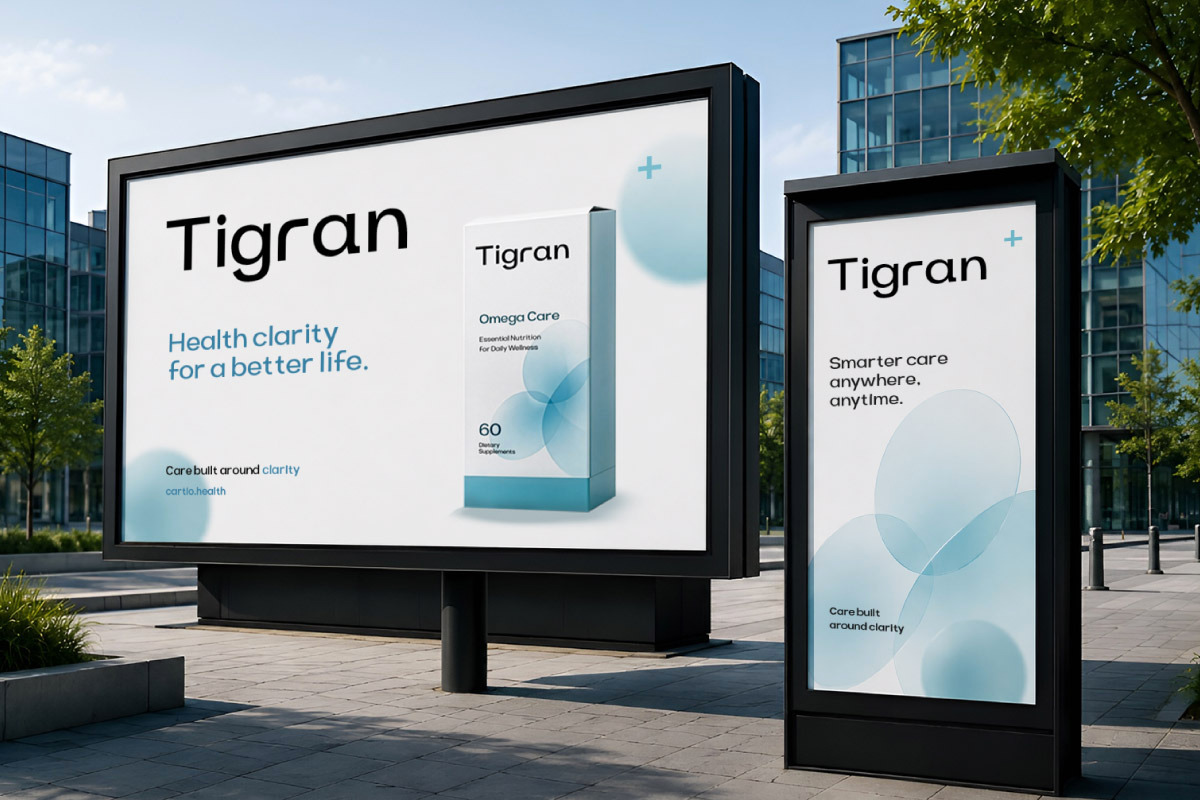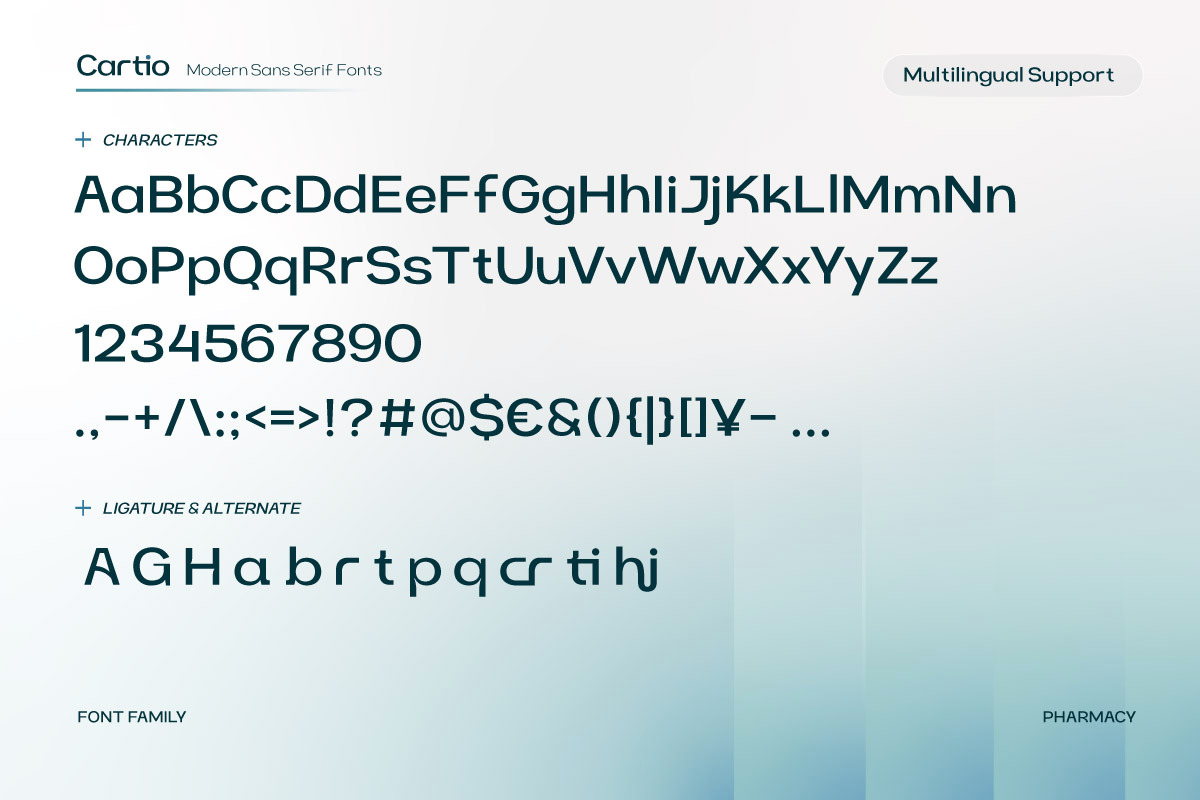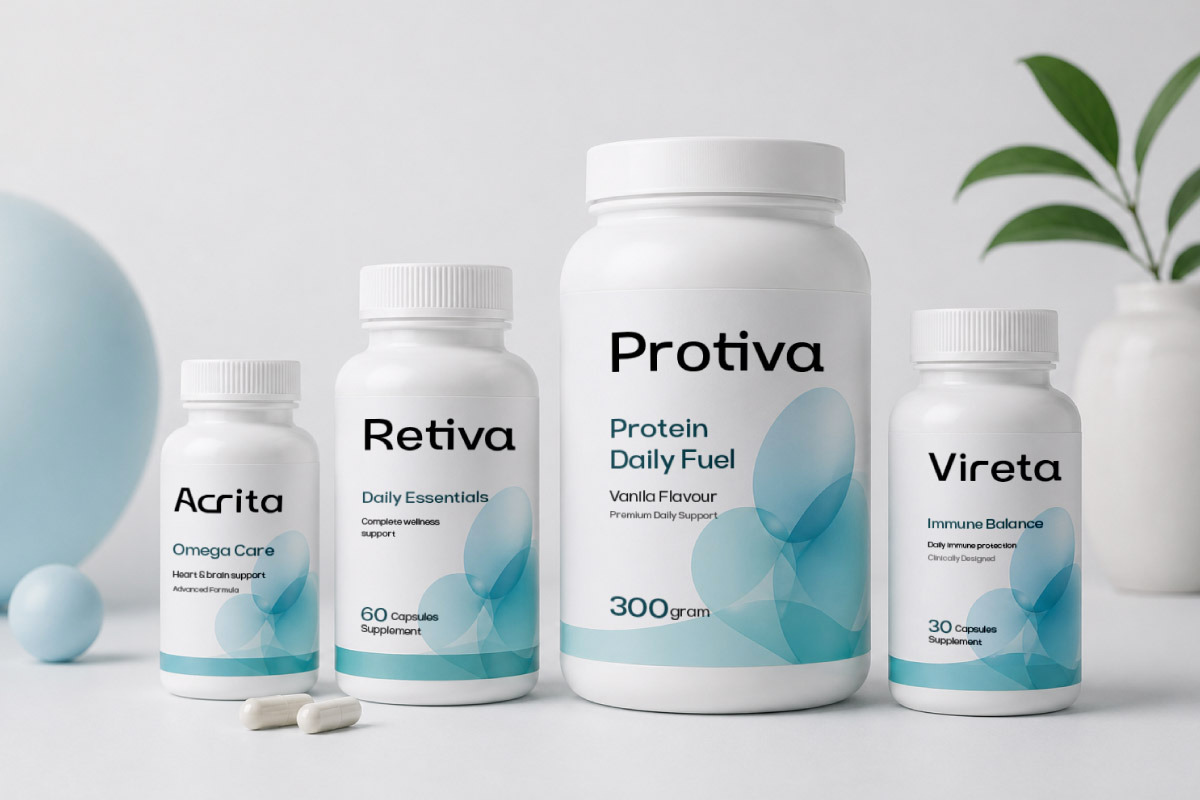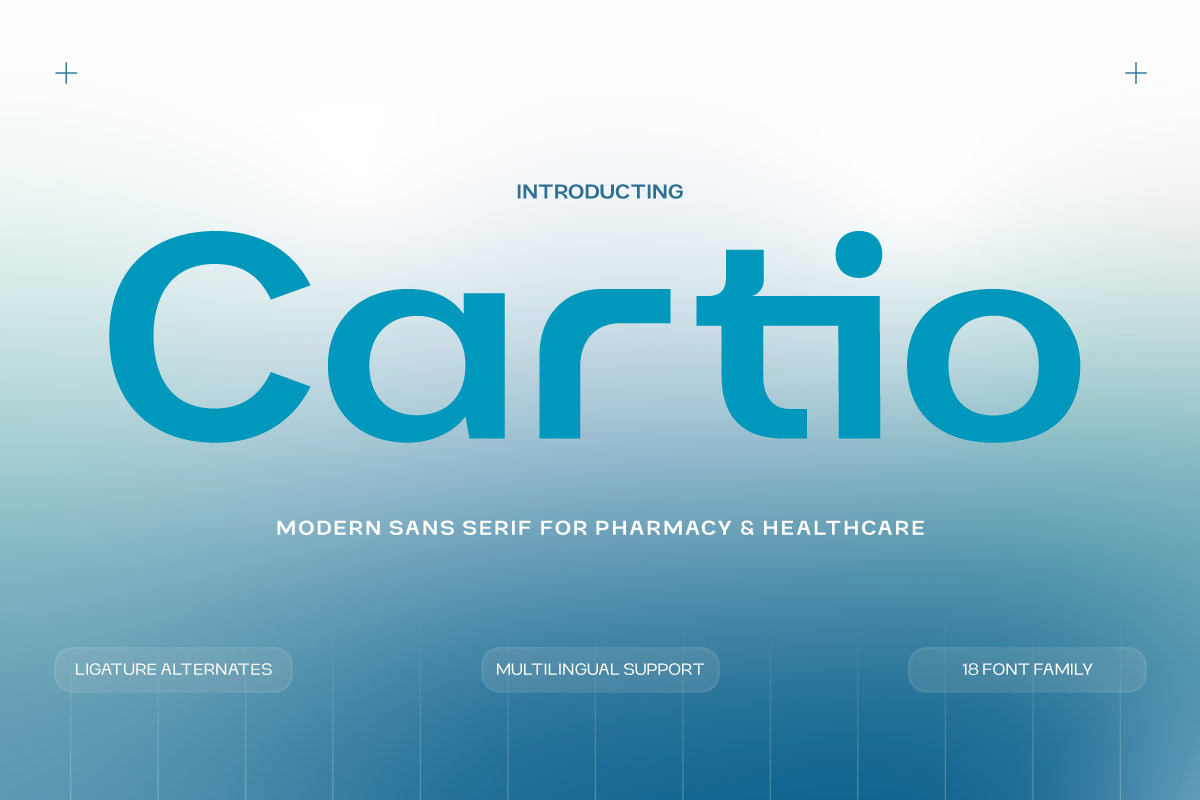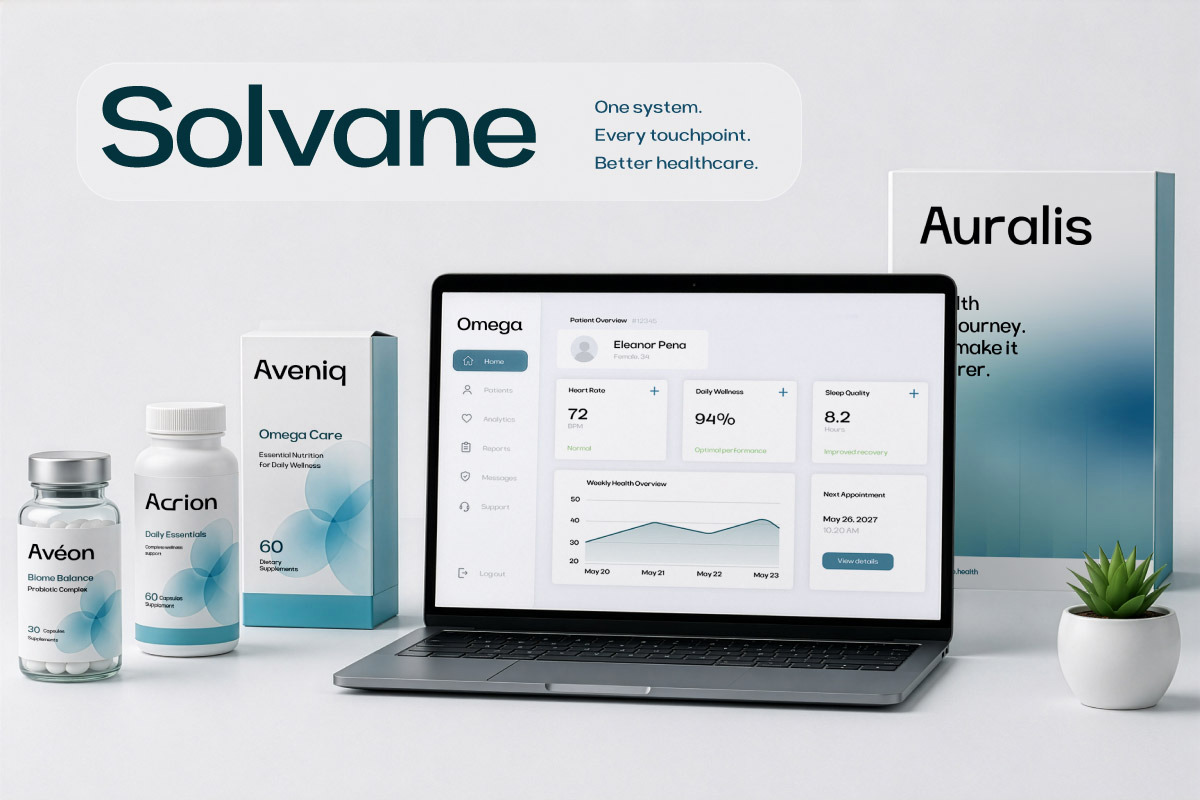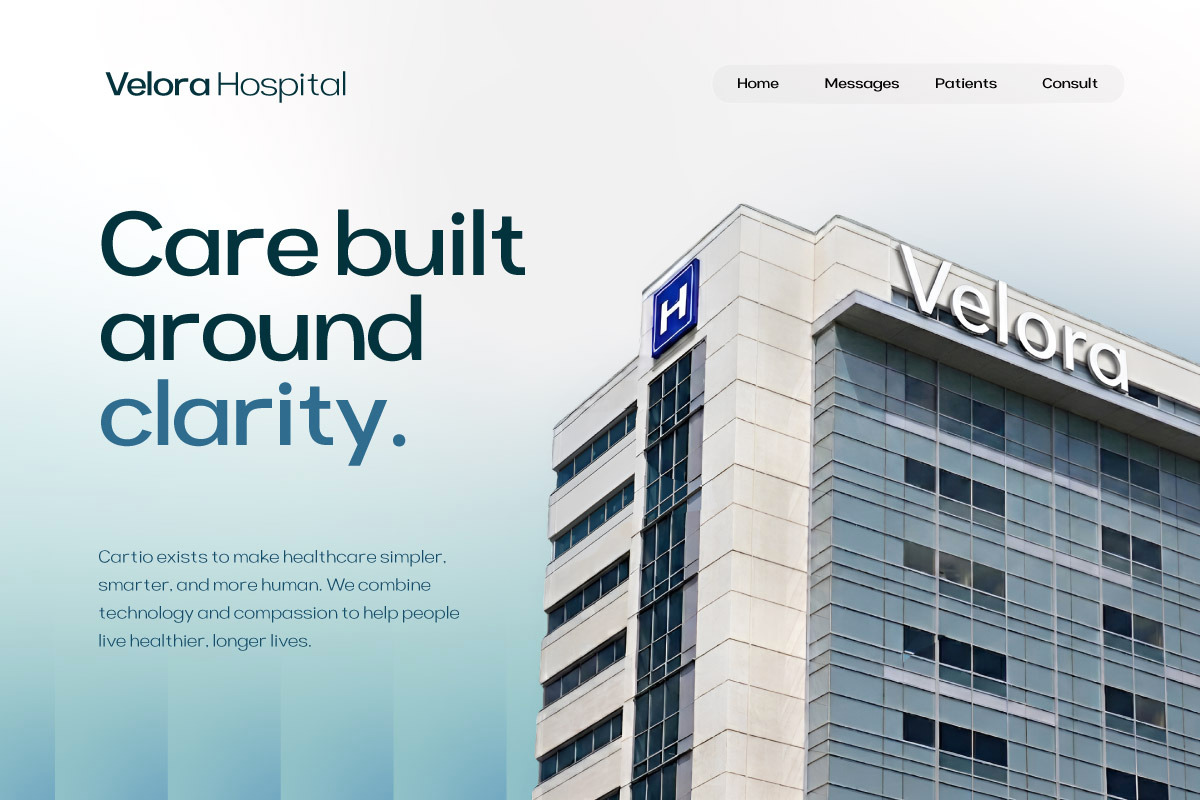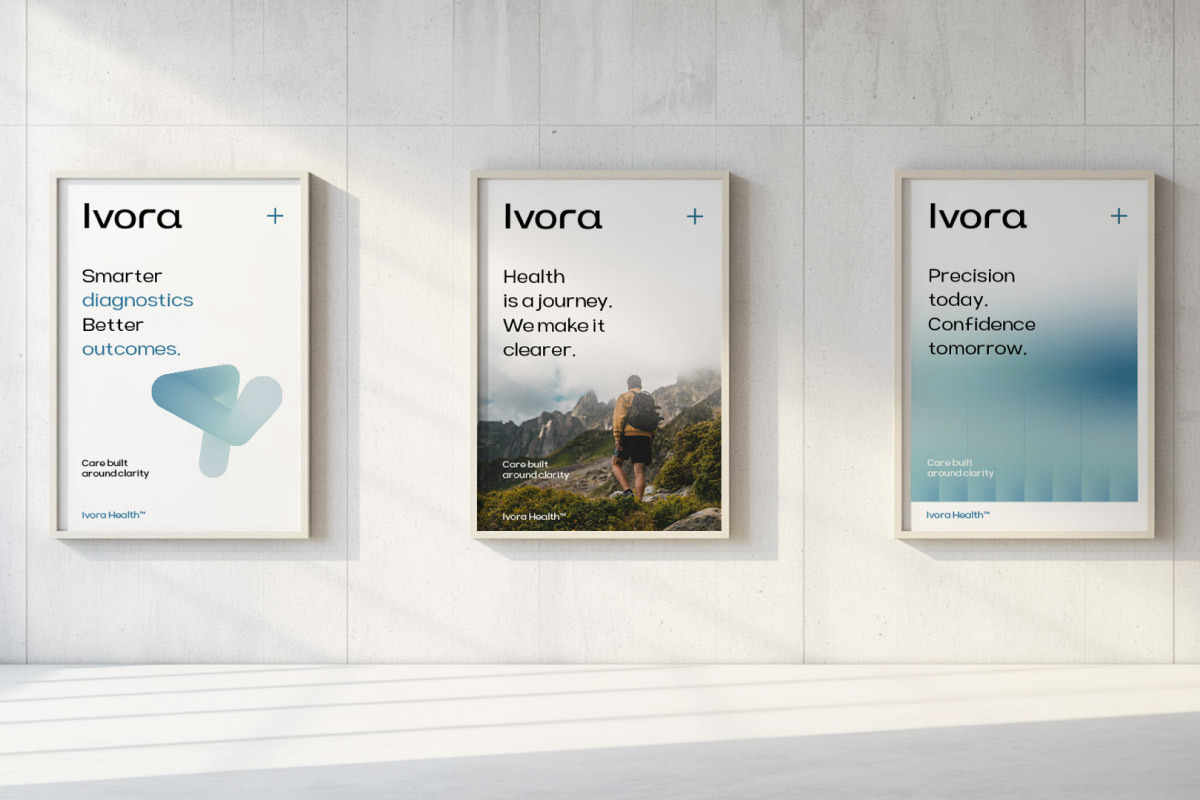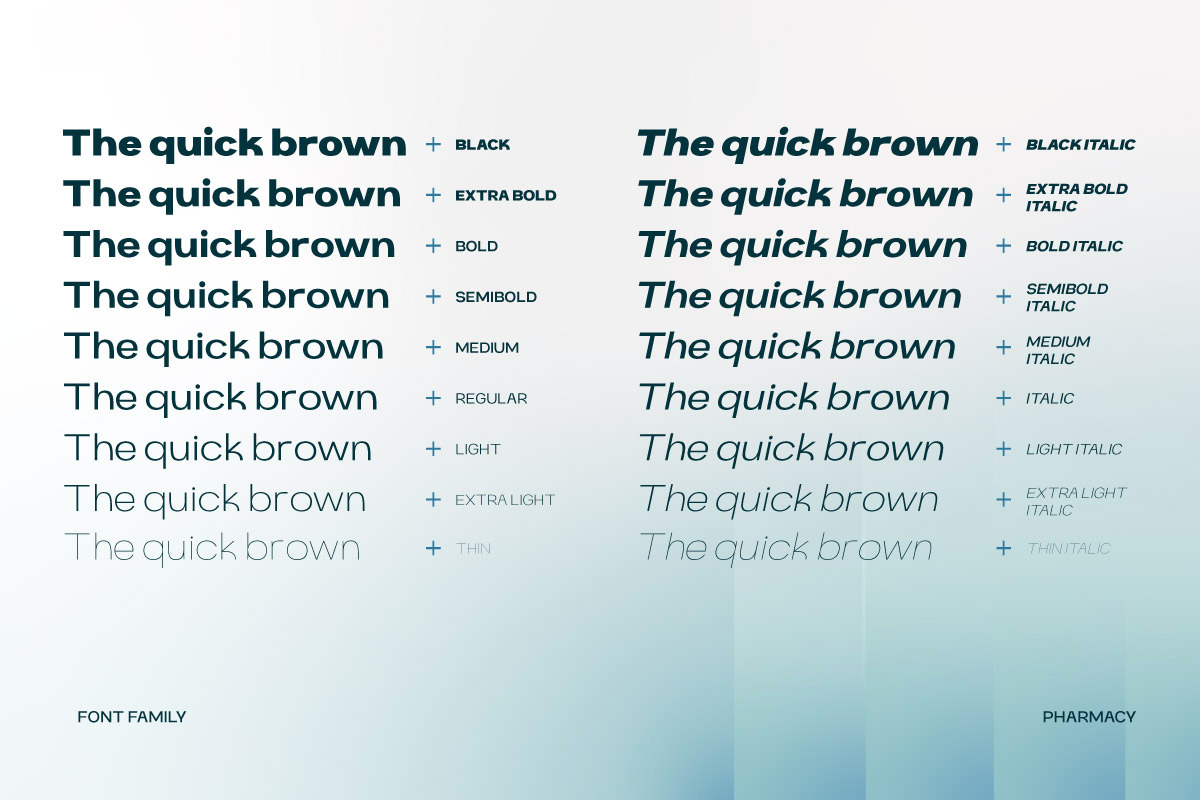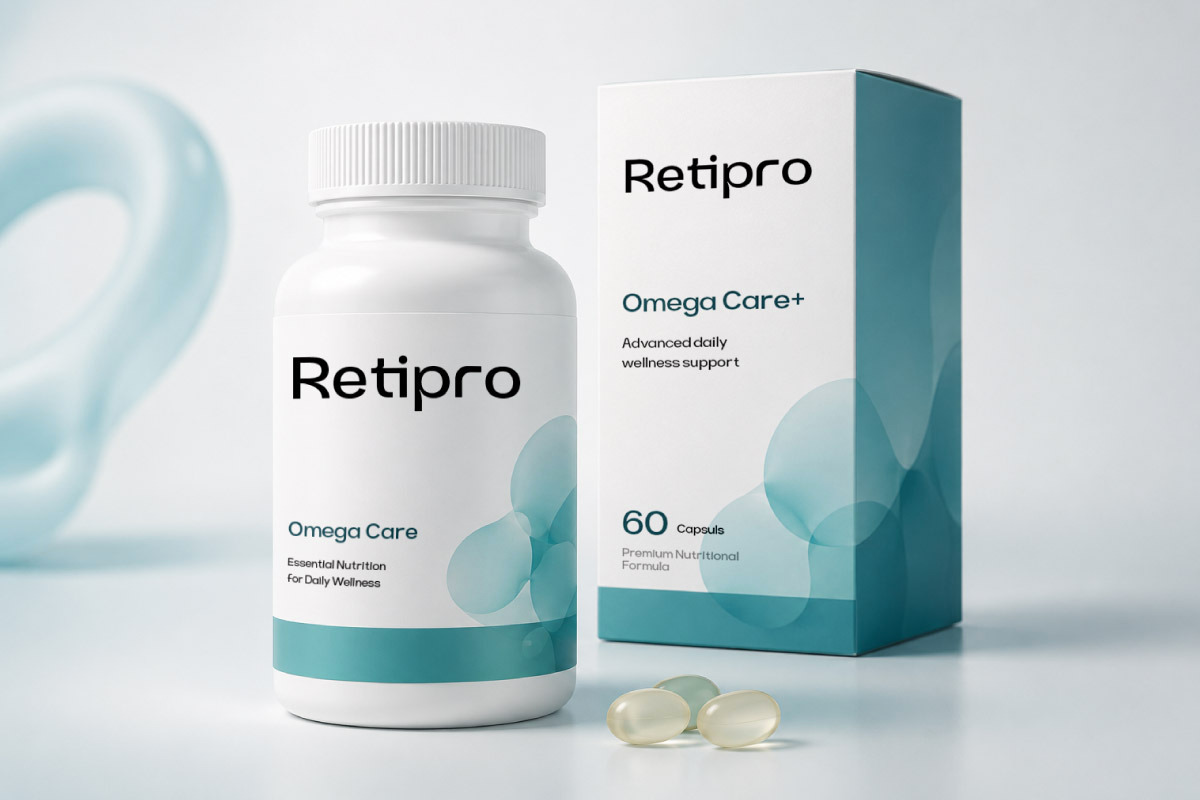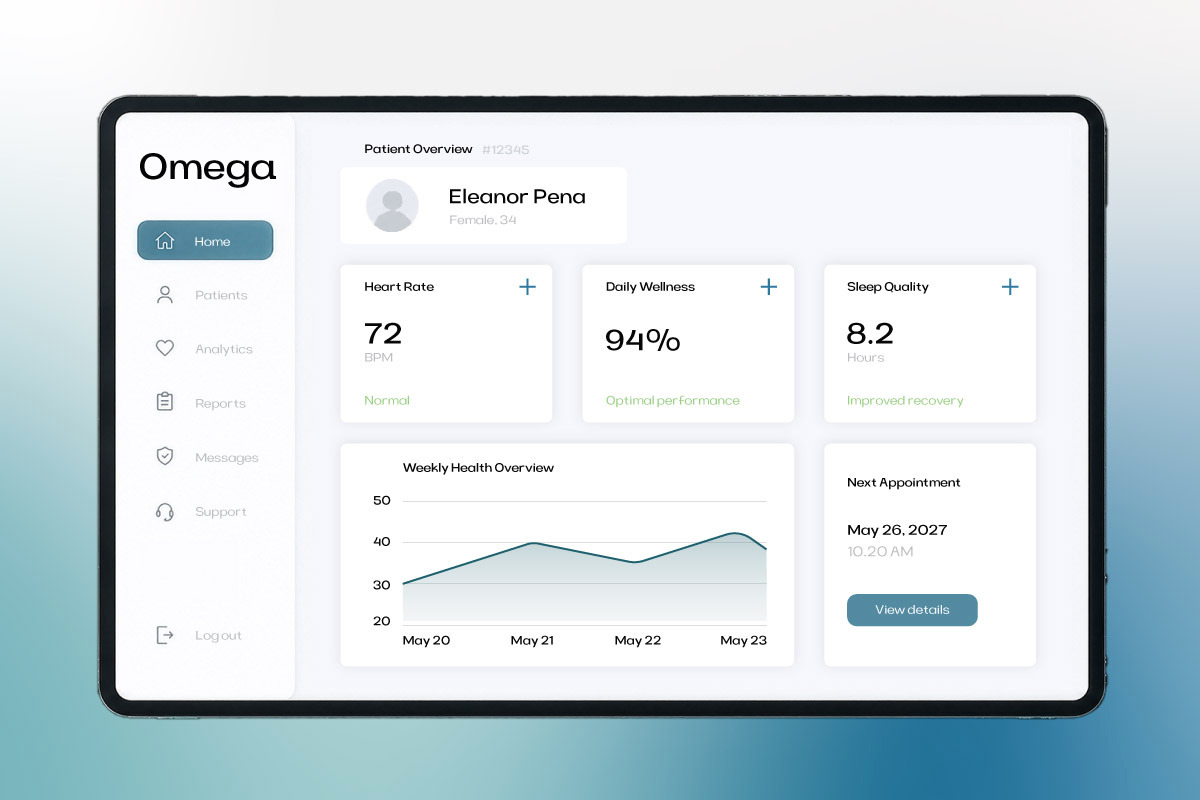
Cartio Sans Serif Font for Pharmacy
Cartio - Sans Serif Font for Pharmacy is a modern sans serif typeface created to deliver a clean, professional, and trustworthy appearance for healthcare and pharmacy industries. Featuring minimalist letterforms, precise proportions, and a refined visual structure, this font creates a premium modern identity perfect for contemporary medical branding. Its elegant yet approachable style helps brands communicate reliability and clarity across digital and print media.
This typeface is perfect for pharmacy branding, healthcare websites, medical packaging, corporate presentations, healthcare dashboards, and modern health-tech products. The strong readability and balanced design make Cartio highly effective for headlines, logos, UI/UX interfaces, and professional visual communication.
Featuring 18 font styles, ligature alternates, multilingual support, and a versatile sans serif system, Cartio offers excellent flexibility for modern healthcare design projects. Its combination of minimalist aesthetics and corporate professionalism makes it an ideal choice for medical brands, health-tech startups, and premium pharmacy businesses.